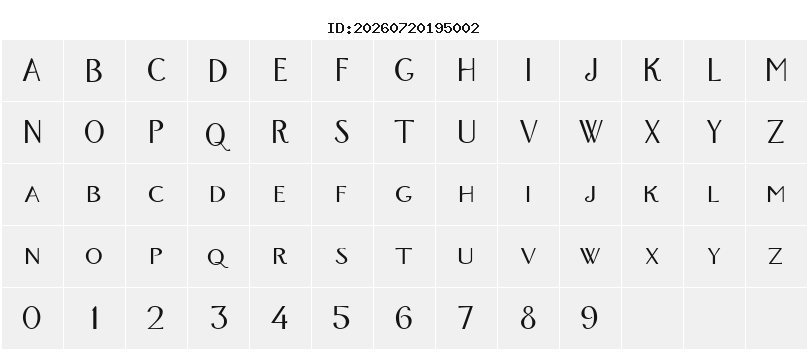
• Font Name: Fox
• Full Font Name: Fox
Fox.ttf is a modern, elegant sans-serif font designed for ultimate readability and visual harmony. Perfect for branding, headlines, web design, and print materials.